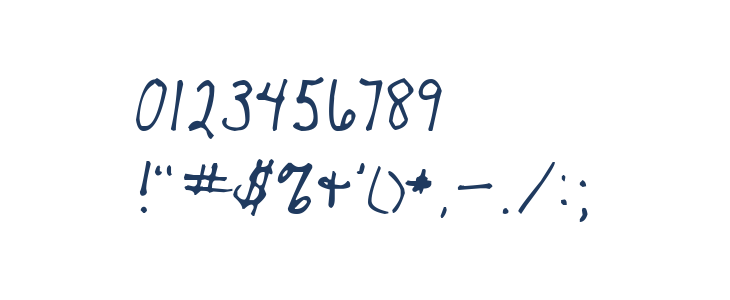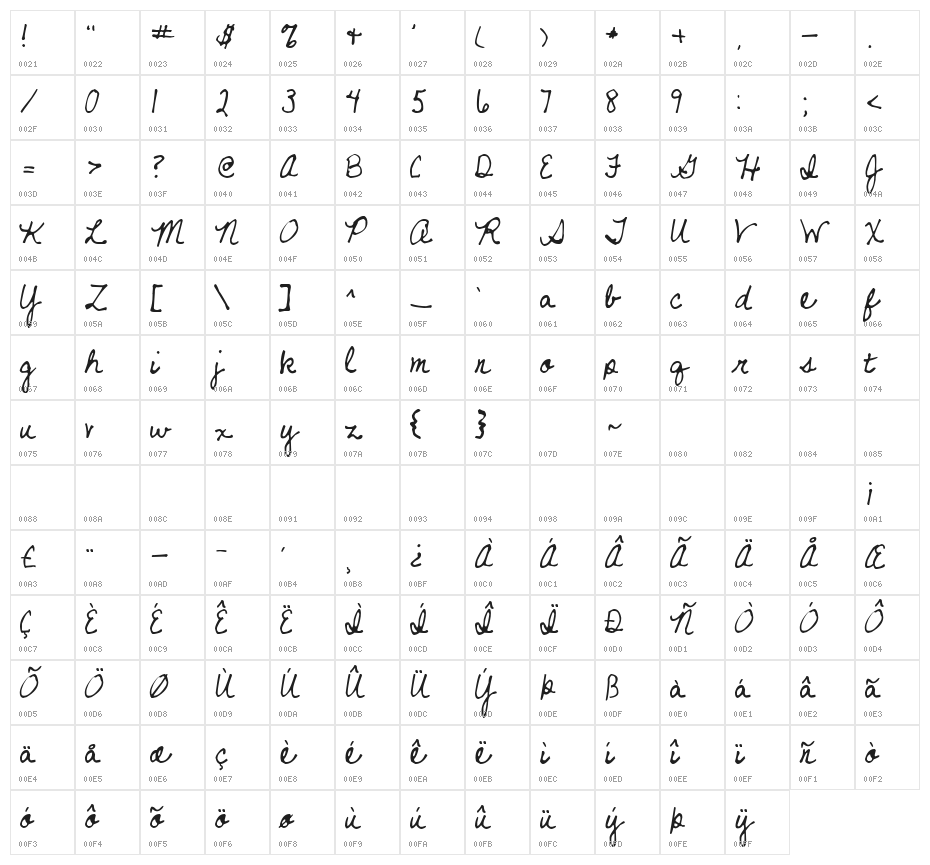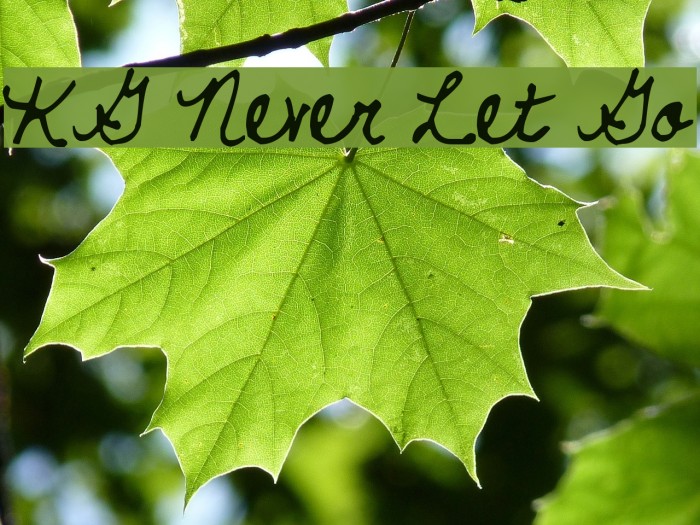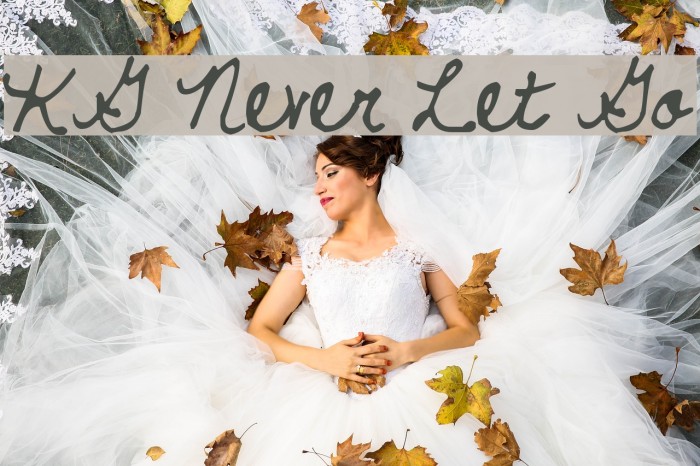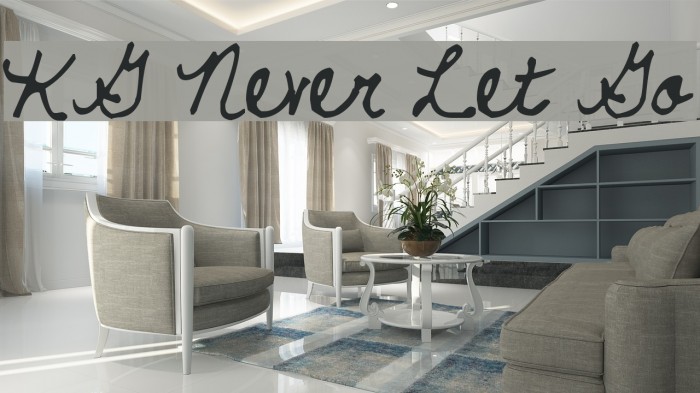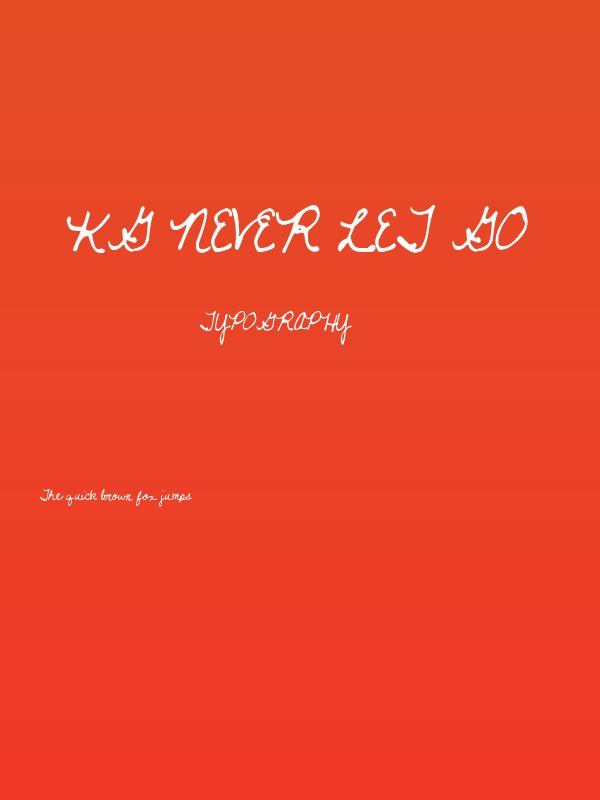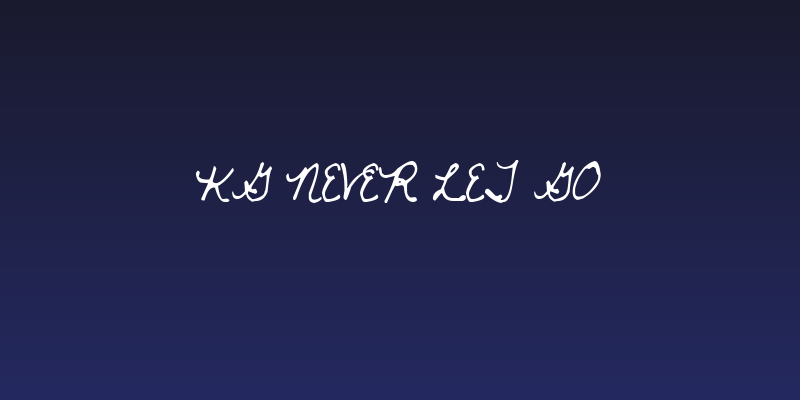
KG Never Let Go Font
KG Never Let Go Description
This font exhibits a playful and casual handwritten style, characterized by its fluid and connected letterforms. The uppercase letters maintain a consistent height, while the lowercase letters show a slight variation in size, adding to the informal feel. The strokes are smooth and slightly irregular, giving it a personal touch. Numbers and special characters follow the same handwritten aesthetic, ensuring a cohesive look across all characters. The overall appearance is approachable and friendly, making it suitable for projects that require a personal or informal tone.
| Use Case | Logos, Headlines, Informal text |
| Proposed Projects | Ideal for greeting cards, personal notes, informal invitations, and creative projects that benefit from a handwritten touch. |